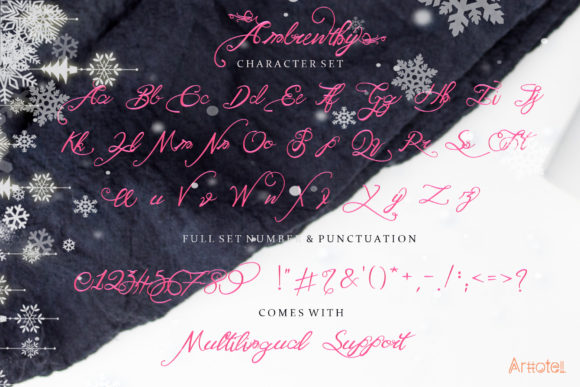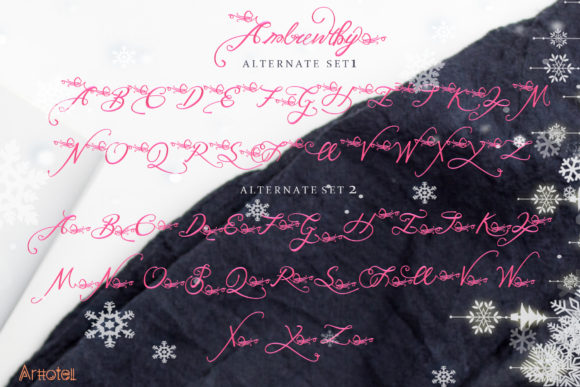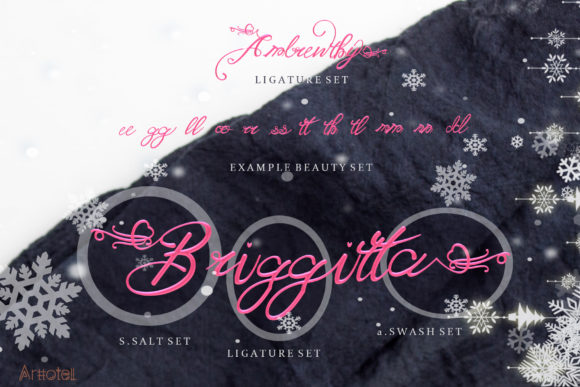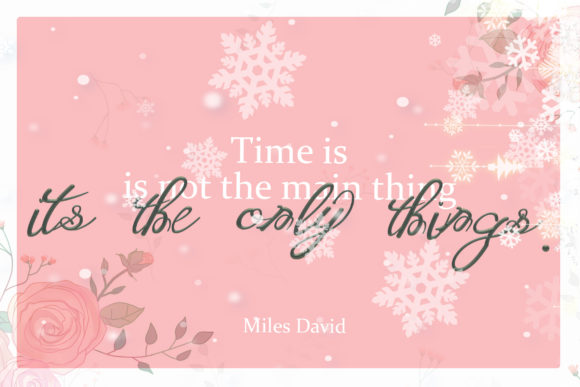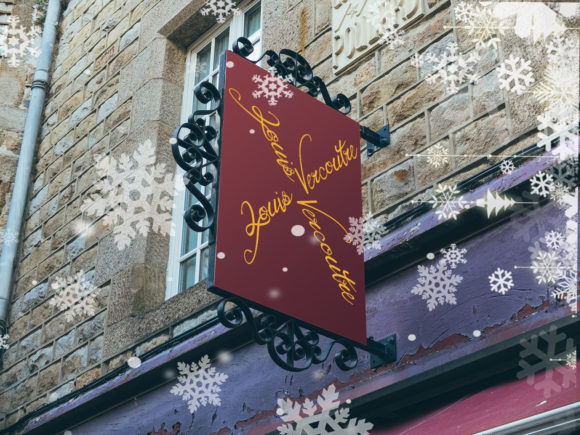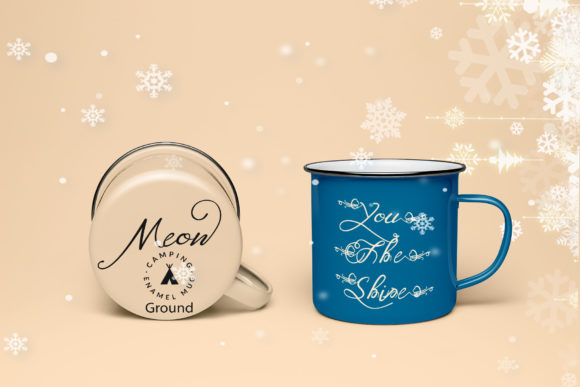
Discover the Beauty of Ambrewthy Font: A Perfect Expression of Love and Compassion
Are you a designer, crafter, or creative enthusiast looking for a font that can convey the deepest emotions of love and compassion? Look no further than the stunning Ambrewthy font. This extraordinary script font is designed to ignite your creativity and add a touch of elegance to your projects. In this article, we’ll explore the unique features of Ambrewthy font, its benefits, and how you can use it to take your designs to the next level.
The Story Behind Ambrewthy Font
Ambrewthy font is a carefully crafted script font that exudes warmth, kindness, and empathy. Its beautiful, flowing lines and curves are perfect for creating romantic, sentimental, and heartfelt designs. Whether you’re working on a wedding invitation, a Valentine’s Day card, or a charity campaign, Ambrewthy font is the ideal choice to express your feelings.
Key Features of Ambrewthy Font
• Unique and Elegant Style: Ambrewthy font boasts a distinctive and sophisticated style that sets it apart from other script fonts. Its gorgeous lines and curves will add a touch of luxury to your designs.
• Perfect for Emotional Expressions: Ambrewthy font is specifically designed to convey emotions such as love, compassion, and kindness. It’s perfect for creating sentimental and heartfelt designs.
• Highly Versatile: Ambrewthy font can be used for a wide range of projects, including wedding invitations, Valentine’s Day cards, charity campaigns, and more.
• Easily Readable: Despite its elegant and cursive nature, Ambrewthy font is highly readable, making it perfect for both digital and print designs.
Benefits of Using Ambrewthy Font
Using Ambrewthy font in your designs offers numerous benefits, including:
• Emotional Connection: Ambrewthy font helps create an emotional connection with your audience, making your designs more relatable and impactful.
• Unique Identity: Ambrewthy font gives your designs a unique identity that sets them apart from others.
• Professional Look: Ambrewthy font adds a professional touch to your designs, making them look more polished and sophisticated.
How to Use Ambrewthy Font in Your Designs
Using Ambrewthy font in your designs is easy and straightforward. Here are some tips to get you started:
• Pair it with Other Fonts: Pair Ambrewthy font with other complementary fonts to create a unique and visually appealing design.
• Experiment with Colors: Experiment with different colors to find the perfect combination that matches your brand or design theme.
• Use it for Headings and Titles: Use Ambrewthy font for headings and titles to add a touch of elegance and sophistication.
Here are some valuable tips for designers and crafters looking to make the most of Ambrewthy font:
• Play with Swashes: Ambrewthy font comes with beautiful swashes that can add a touch of elegance to your designs.
• Use it for Digital and Print Designs: Ambrewthy font is suitable for both digital and print designs, making it a versatile addition to your font library.
• Experiment with Different Sizes: Experiment with different font sizes to find the perfect balance for your design.
Ambrewthy font is an extraordinary script font that is perfect for expressing love and compassion. Its unique and elegant style, versatility, and readability make it an ideal choice for designers and crafters. Whether you’re working on a wedding invitation, a charity campaign, or a personal project, Ambrewthy font is sure to ignite your creativity and add a touch of sophistication to your designs.